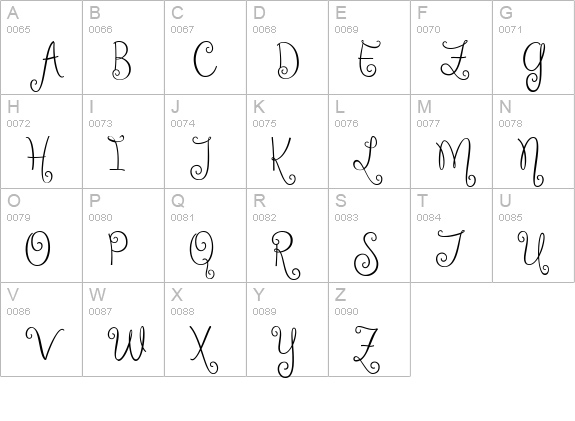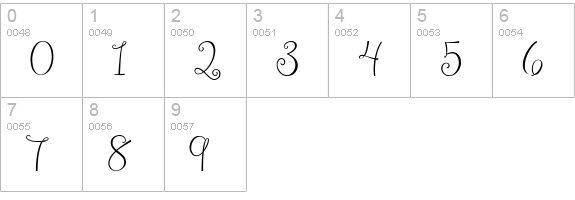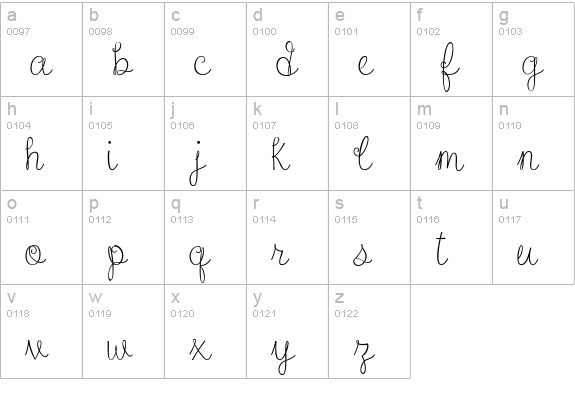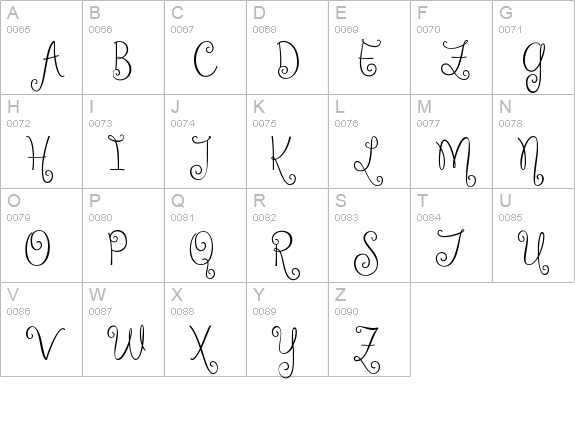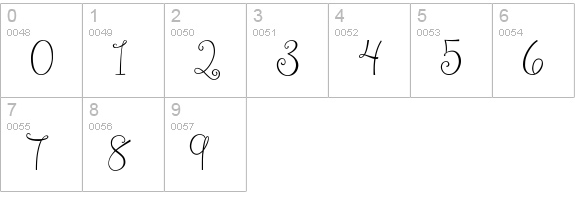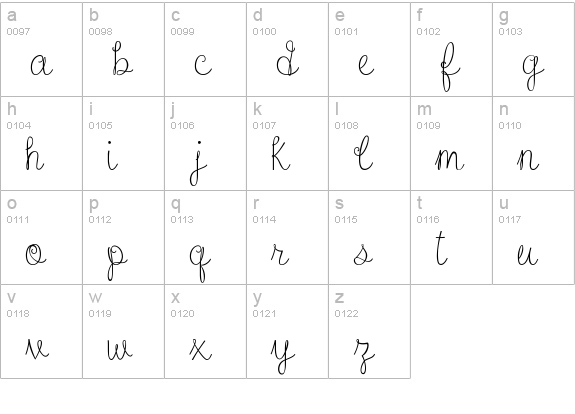
Sweethearts Love Letters is a whimsical and romantic font that captures the essence of love, affection, and connection. With its delicate and graceful letterforms, this font is perfect for expressing heartfelt sentiments, writing love letters, creating beautiful wedding invitations, or adding a touch of romance to any project. The Sweethearts Love Letters font is designed with love in mind, bringing a sense of warmth and tenderness to every character. Its elegant and flowing strokes create a sense of movement and harmony, reflecting the beautiful journey of love. One of the most remarkable aspects of Sweethearts Love Letters is that it is freely available to download at FontsMarket.com. This means that anyone can access and use this enchanting font without any cost, making it accessible to all who wish to add a touch of sweetness and romance to their designs. Whether you are a designer, a writer, a bride-to-be, or simply someone who appreciates the beauty of love, Sweethearts Love Letters font is a must-have in your collection. Its versatility and timeless appeal make it suitable for a wide range of projects and occasions, from romantic greeting cards to elegant logos and branding. Download Sweethearts Love Letters font today from FontsMarket.com and let its charming and captivating presence infuse your designs with love and romance. Express your feelings, create breathtaking designs, and spread the joy of love with this freely available font that is sure to steal hearts wherever it goes.